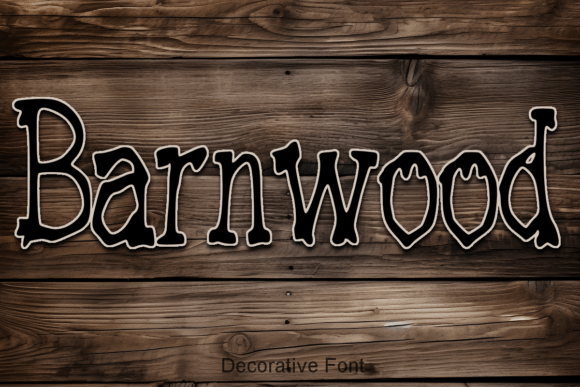
A Timeless Touch: Unleashing the Charm of the Barnwood Font
As a designer, have you ever stumbled upon a font that instantly transports you to a simpler time, a place where the beauty of nature and the charm of rural living reign supreme? For me, that font is the Barnwood Font, a rustic yet refined serif typeface that embodies the essence of the countryside.
With its weathered textures and vintage charm, the Barnwood Font is more than just a design element – it’s an invitation to slow down, appreciate the little things, and connect with the world around us. This font is perfect for designers looking to add a touch of authenticity and warmth to their creative endeavors, whether it’s a branding project, a website, or a marketing campaign.
Barnwood Font Key Features
- Unique Characteristics: Distressed, vintage, and rustic design elements, including subtle texture and imperfections
- Font Style: Includes 6 different font styles: Regular, Italic, Bold, Bold Italic, Outline, and Shadow
Barnwood Font Review
I’ve had the chance to work with the Barnwood font, and I must say it’s a mixed bag. On the one hand, it’s ✨ beautiful, with a unique blend of rustic and elegant elements that can add a touch of sophistication to any design. The font’s distressed texture and weathered feel can be particularly effective in creating a sense of history and character.
- ✨ Unique texture and feel: The Barnwood font’s distressed texture and weathered feel can add a lot of character to designs.
- ✨ Wide range of applications: The font can be used in a variety of contexts, from rustic-themed websites and branding to more elegant, sophisticated designs.
- ✨ High-quality rendering: The font renders well in both print and digital formats.
However, there are also some limitations:
- ⚠️ Limited customization options: The font’s distressed texture and weathered feel can make it difficult to customize the font’s appearance without losing its unique character.
- ⚠️ Not suitable for all designs: The font’s rustic, distressed feel may not be suitable for all types of designs, particularly those that require a more modern or sleek aesthetic.
Overall, I think the Barnwood font is a solid choice for designers looking to add a touch of character and history to their designs. However, it may not be the best fit for every project, and designers should carefully consider the font’s limitations before using it.
The Barnwood Font is ideal for rustic, vintage, or distressed designs. Use it for wedding invitations, marketing materials, or social media graphics. To get the most out of the font, experiment with different font sizes, colors, and styles to achieve a unique look. You can also combine the font with other design elements, such as textures, images, or graphics, to create a visually appealing design.